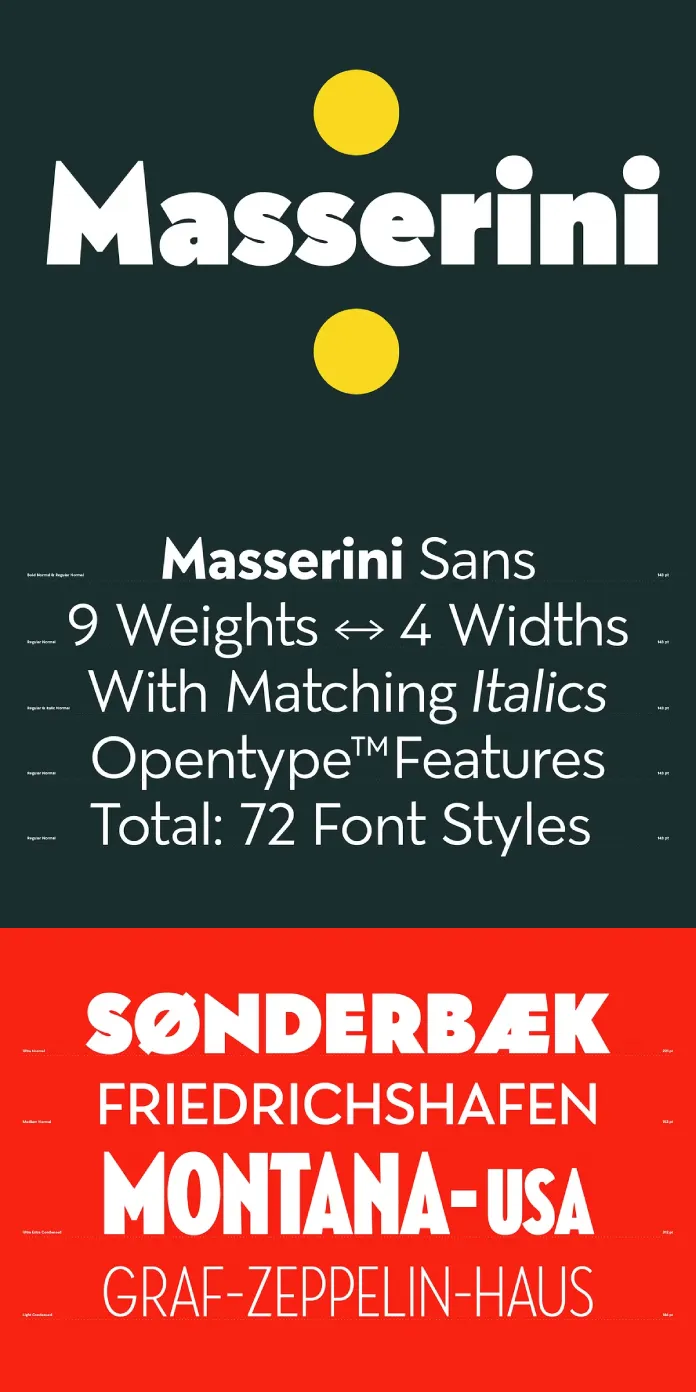
The Masserini Superfamily is a Contemporary Take on Art Deco Elegance
The Masserini font family, designed by Sundance Tipografia, is a stunning homage to the typography of the 1920s Art Deco era. Drawing inspiration from the geometric forms and bold aesthetic of vintage posters and signage, this superfamily boasts an impressive 72 styles across four widths: Normal, Semi Condensed, and Extra Condensed. With its versatile offerings and attention to historical detail, Masserini offers designers a modern toolset to evoke timeless sophistication.
Inspired by the Art Deco Golden Age
Masserini captures the spirit of 1920s typography with its strong geometric shapes and clean lines. The typeface reflects the visual language of the Art Deco period, with its bold yet elegant letters reminiscent of signage, posters, and advertisements from the golden age of design. The inclusion of rounded forms and sleek finishes makes it both approachable and refined, blending the past with the present.
A Superfamily with Limitless Possibilities
One of Masserini’s greatest strengths is its flexibility. Offering nine weights from Thin to Heavy, each complemented by matching italics, this typeface can adapt seamlessly to a wide range of creative needs. Its four width variations—Normal, Semi Condensed, and Extra Condensed—add another layer of adaptability, allowing designers to maintain visual harmony across diverse layouts.
With 72 styles in total, Masserini is a powerhouse for any project, from branding to editorial design. The consistency across its styles ensures that it performs equally well in headlines, subheadings, and body text, making it ideal for both digital and print applications.
Opentype™ Features for Professional Results
Masserini comes equipped with advanced OpenType™ features, providing professional-grade functionality. These include ligatures, stylistic alternates, and extended language support, making the typeface suitable for global applications. These features enhance the font’s usability and allow designers to push their creativity further while maintaining a polished and professional look.
Ideal Applications for Masserini
Masserini shines in applications where a touch of vintage sophistication is required. Its bold weights and condensed styles make it perfect for poster design, while its lighter weights are well-suited for invitations, packaging, and editorial layouts. The geometric precision and clean aesthetic make it an excellent choice for luxury branding, fashion, and lifestyle projects.
A Typeface That Balances Style and Substance
What sets Masserini apart is its ability to balance decorative flair with functionality. Its strong geometric foundation ensures readability, even in complex layouts or condensed styles. At the same time, its nod to the Art Deco era adds a unique character, making it a memorable choice for projects that aim to stand out.
The Masserini font family by Sundance Tipografia is a great blend of historical inspiration and modern design. Its extensive range of styles, advanced features, and impeccable craftsmanship make it a valuable asset for designers across industries. Whether creating bold headlines, intricate layouts, or elegant branding materials, Masserini offers the tools to achieve timeless, impactful results.
If you’re looking for a typeface that bridges vintage charm and contemporary versatility, Masserini is a stellar choice.